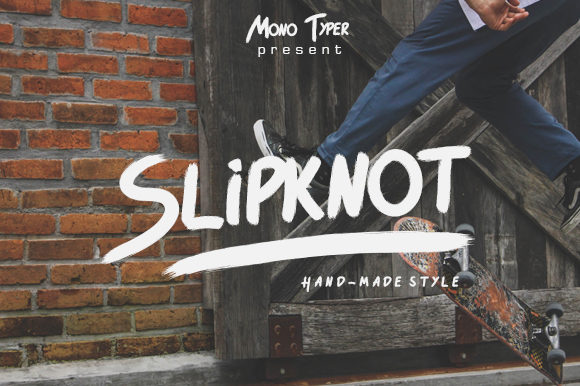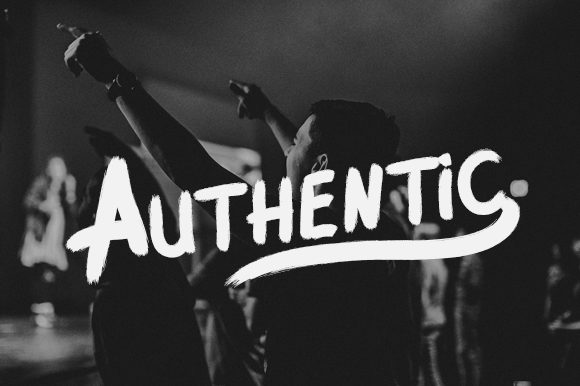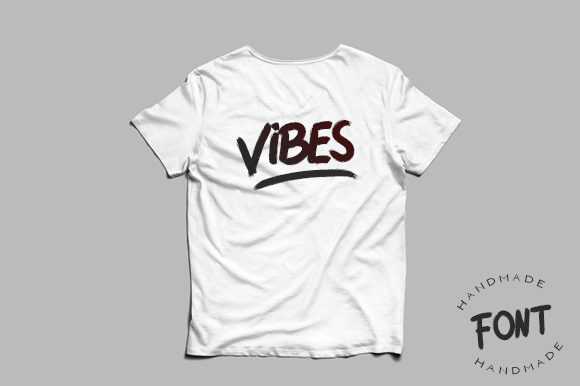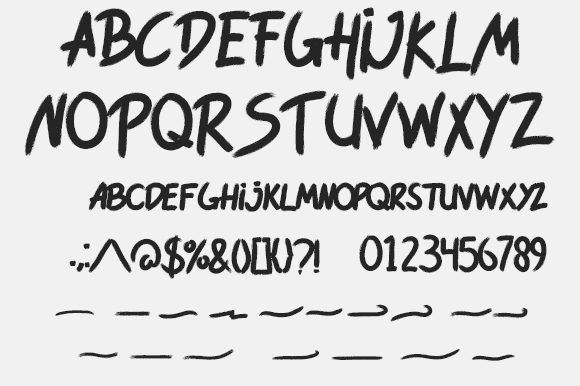
Slipknot Font
About Slipknot Font
Slipknot is a rough around the edges, hand-made paint brush font with bags of personality. It will turn any creative idea into an eye catcher!